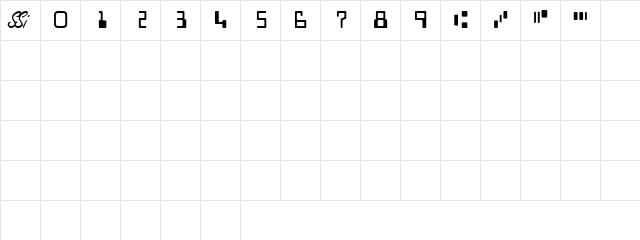
MICRSSK Regular
Design Context for MICRSSK Typeface
MICRSSK offers clean, dependable letterforms without strong stylistic allegiance, making it a practical choice for designers who need flexibility.